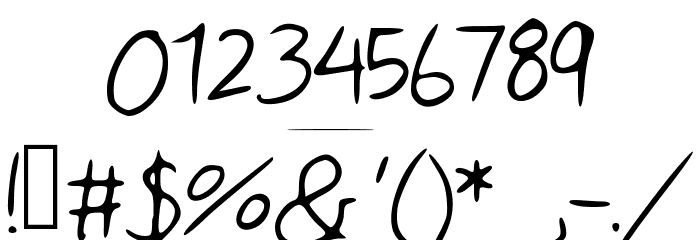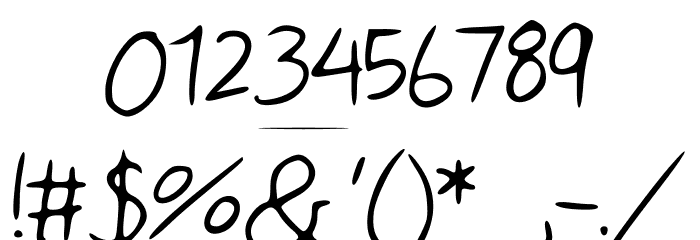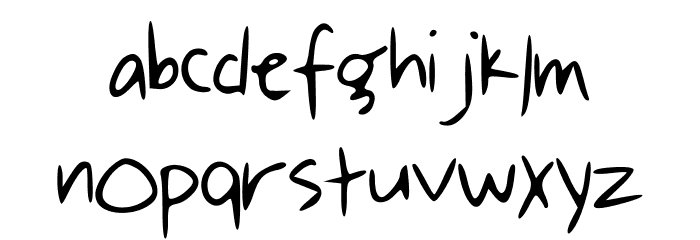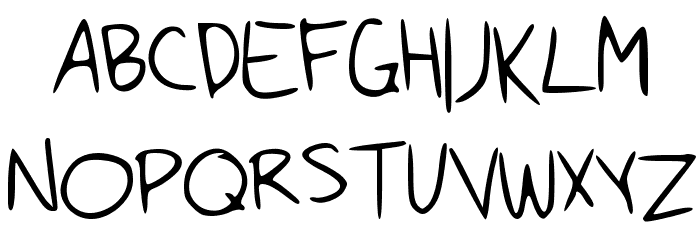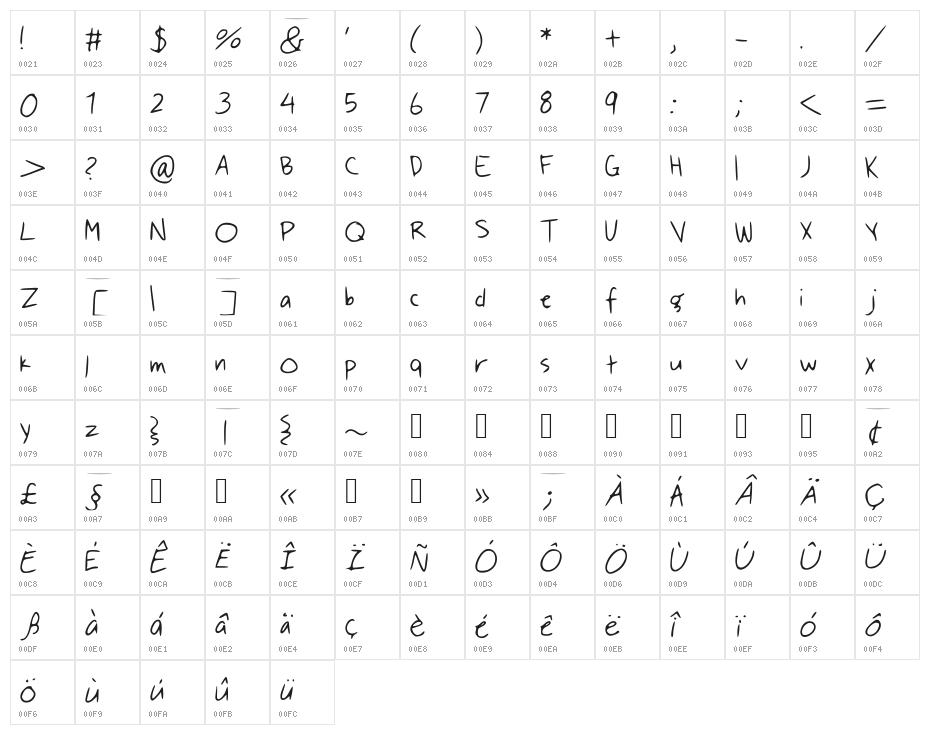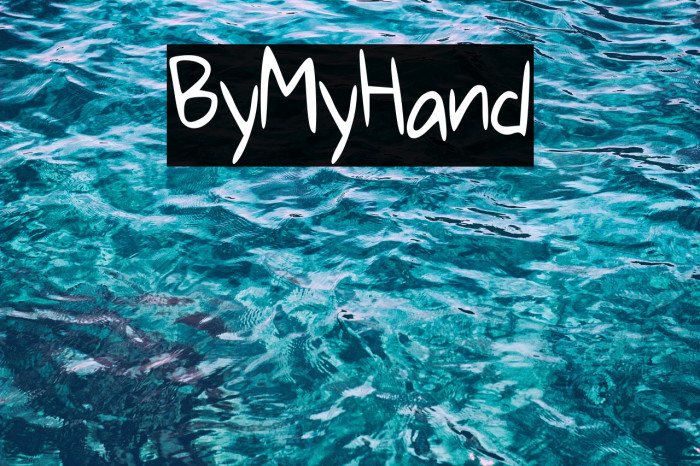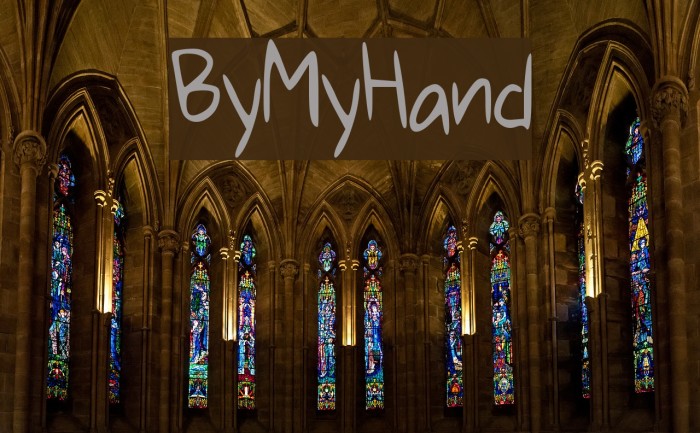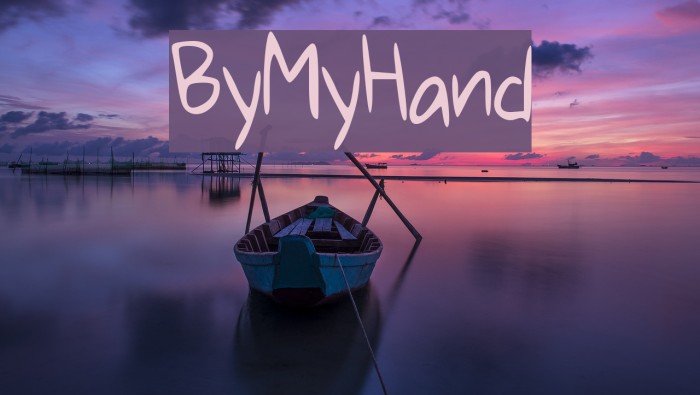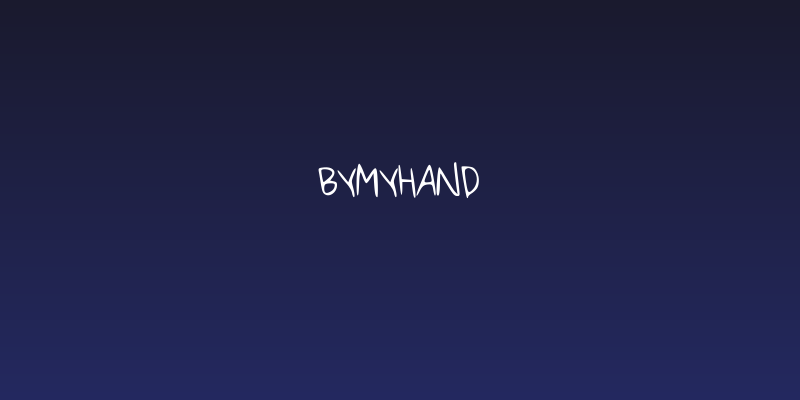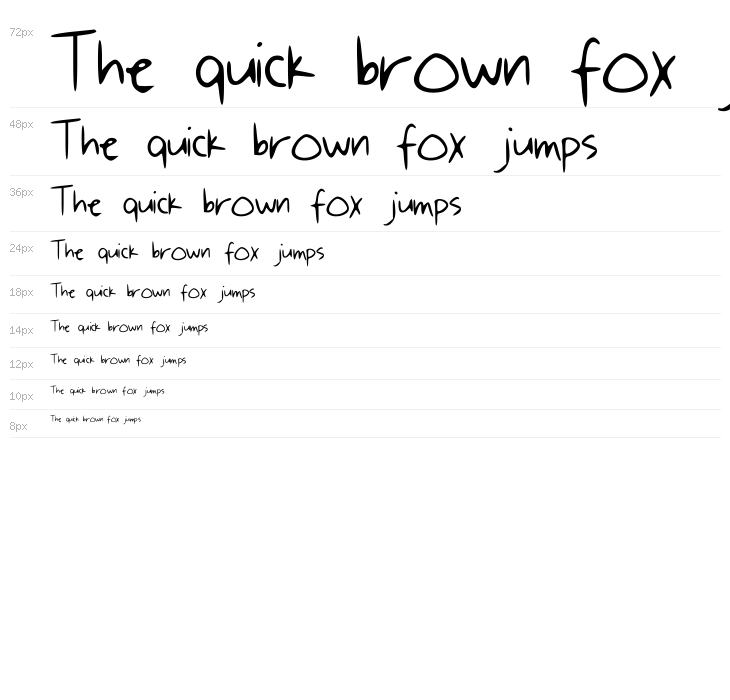
ByMyHand Font
ByMyHand Description
This font features a playful and casual handwritten style, characterized by its uneven strokes and slightly irregular letterforms. The uppercase letters are bold and dynamic, with a slight slant that adds a sense of movement. The lowercase letters maintain the same lively energy, with rounded edges and varying heights that contribute to its informal appearance. Numbers and special characters are crafted with the same whimsical touch, ensuring consistency across all elements. This font's organic feel makes it suitable for projects that require a personal and approachable tone.